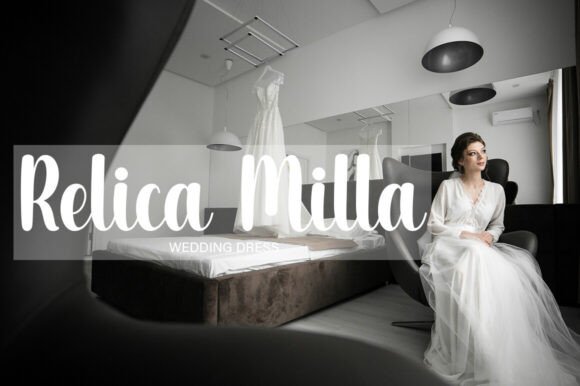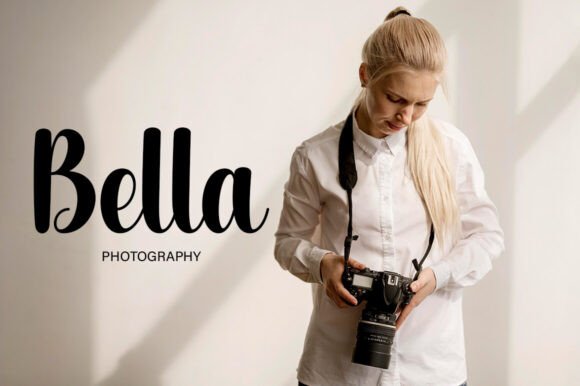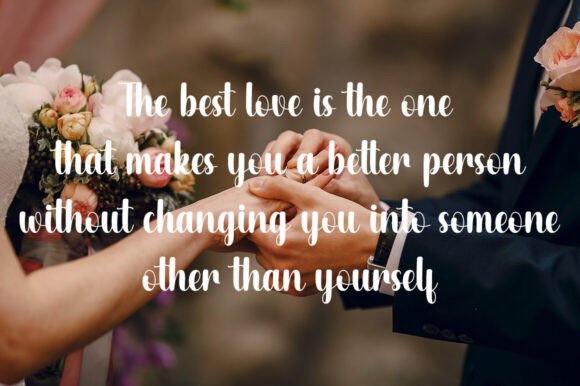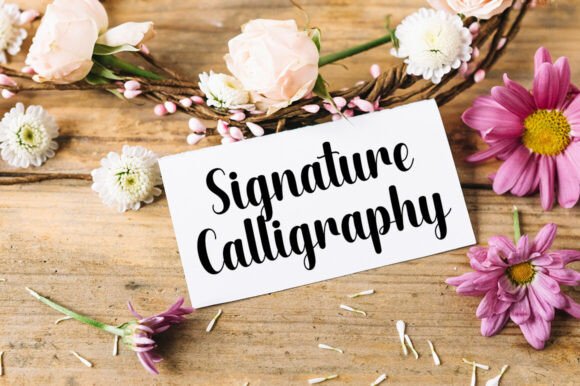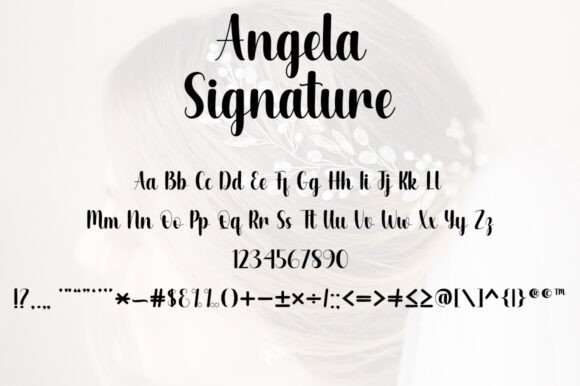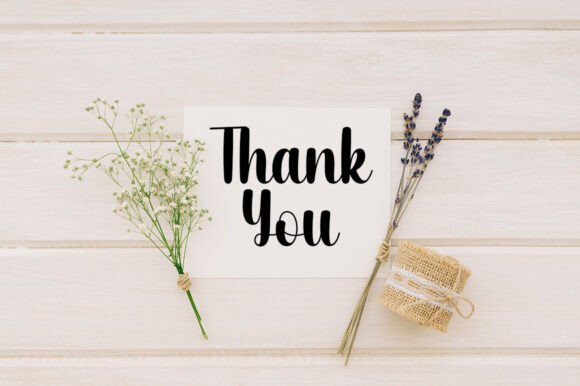
Unleashing the Art of Handwritten Elegance
Have you ever found yourself scribbling down a creative idea in a coffee shop, only to be stopped by the blank page staring back at you? The frustration is real, but what if that blank page could be transformed into a masterpiece with the right tool? This is where the magic of typography comes in – and the Angela Signature Font is about to take your design projects to the next level.
This trendy handwritten font is inspired by timeless classic calligraphy, giving your designs a contemporary atmosphere and impeccable form. Whether you’re a seasoned designer or a creative enthusiast, the Angela Signature Font is a valuable addition to your toolkit. Its elegance and class will elevate any project, from wedding invitations to social media graphics, and everything in between.
Angela Signature Font Key Features
- Font Family: Angela Signature Font is a unique, handwritten font designed to resemble a signature.
- Unique Characteristics: Features a distinctive, flowing script style with varying line widths, making it perfect for creative and expressive designs.
Designer Review: Angela Signature Font
First impressions are everything, and Angela Signature Font did not disappoint. ✨ The elegant script style is reminiscent of hand-written signatures, perfect for personal branding and stationery. The font is highly customizable, allowing users to adjust the spacing, size, and even the style of the script to suit their needs.
- Highly customizable: users can adjust the spacing, size, and style of the script to suit their needs.
- Elegant script style: perfect for personal branding and stationery.
- Supports multiple languages: making it a great option for international brands.
However, I did encounter some limitations while working with Angela Signature Font. ⚠️ The font can be quite heavy and overwhelming when used in large quantities, and the lack of bold and italic styles can make it difficult to create visual hierarchy in some designs.
Overall, I’m impressed with Angela Signature Font. While it may have its limitations, its unique style and high level of customization make it a great option for designers looking to add a personal touch to their work.
Use the Angela Signature Font for:
- Personal branding and logos.
- Business cards and letterheads.